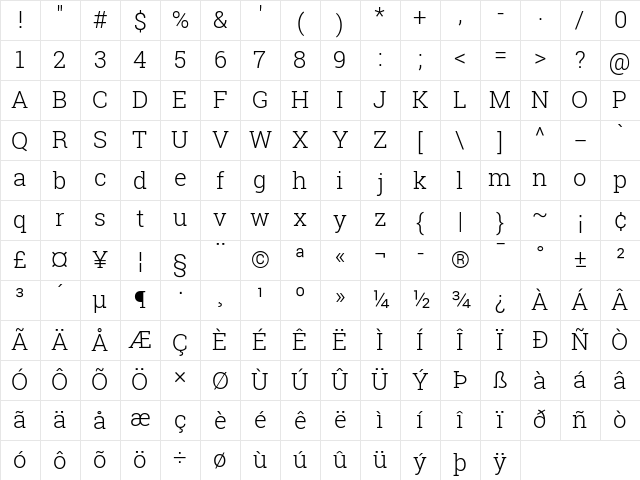
Roboto Slab Light
Designer: Google
Design Context for Roboto Slab
Roboto Slab features prominent, blocky serifs that give it a confident, grounded presence - equally at home in editorial settings and bold branding work. Its slender proportions lend an understated elegance to any composition.
Pro Tip: Use Roboto Slab for headlines and subheadings where its slab serifs can make an impression. It also holds up well in mid-size body copy thanks to its sturdy construction.